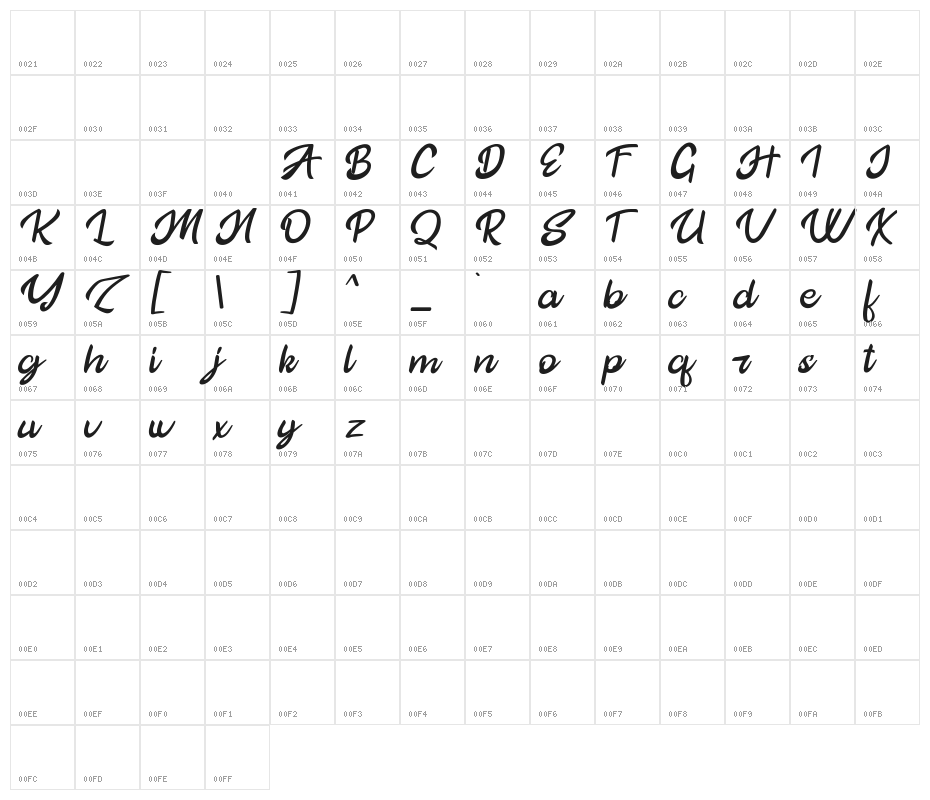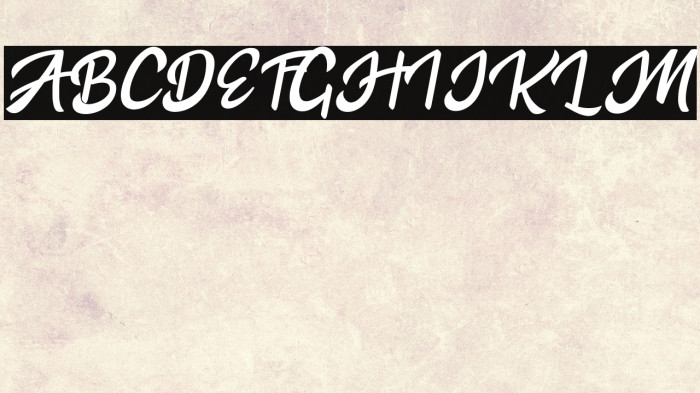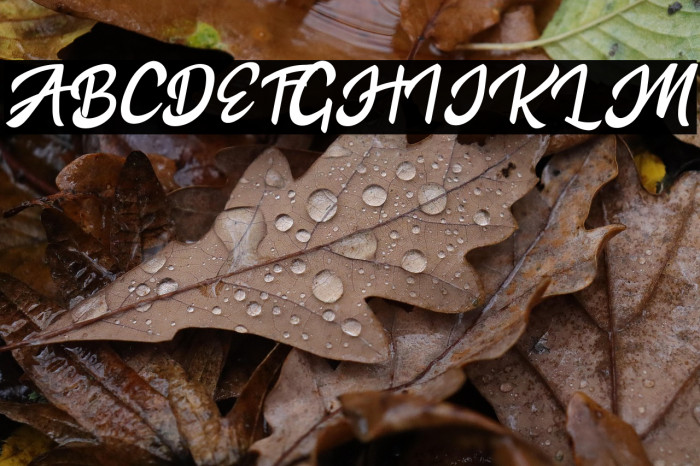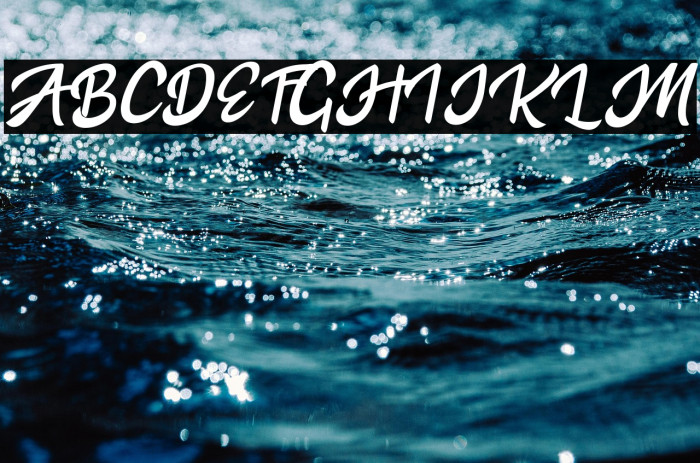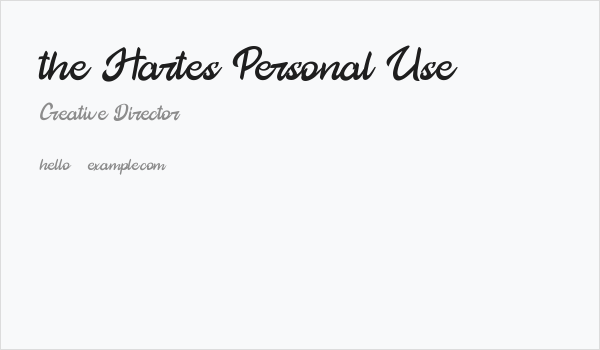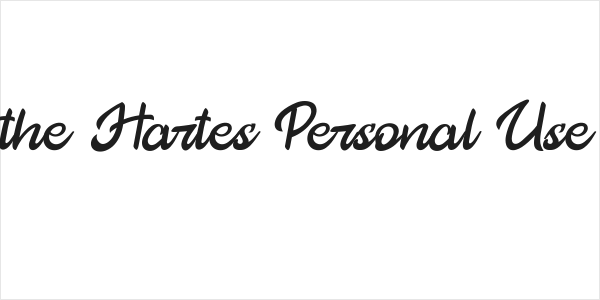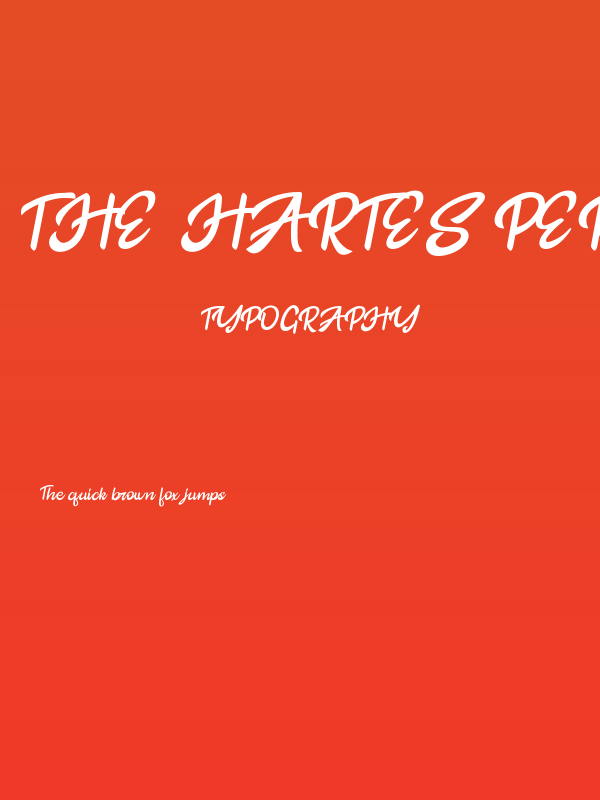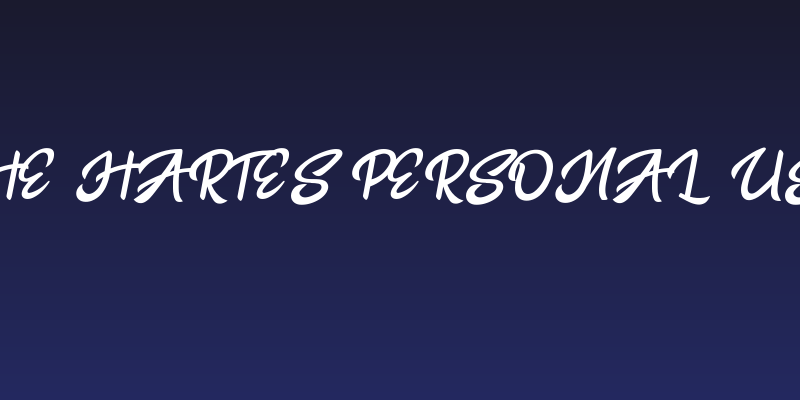
the Hartes Personal Use Font
the Hartes Personal Use Description
This font features a flowing, cursive style that mimics elegant handwriting. The letters are connected, creating a seamless and fluid appearance. The uppercase letters are slightly more ornate, with flourishes that add a touch of sophistication. The lowercase letters maintain a consistent height, contributing to the overall harmony of the design. The strokes are bold and confident, with a medium contrast that enhances readability while retaining a decorative flair. This font exudes a sense of personal touch and creativity, making it ideal for projects that require a handwritten aesthetic.
| Use Case | Logos, Invitations, Artistic projects |
| Proposed Projects | Ideal for wedding invitations, personal branding, greeting cards, and artistic projects. |